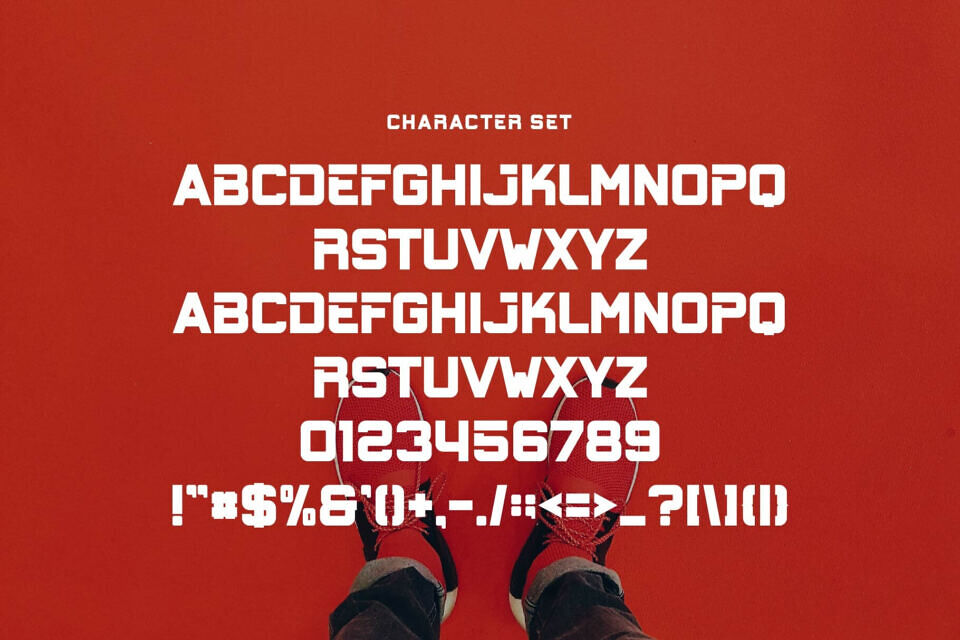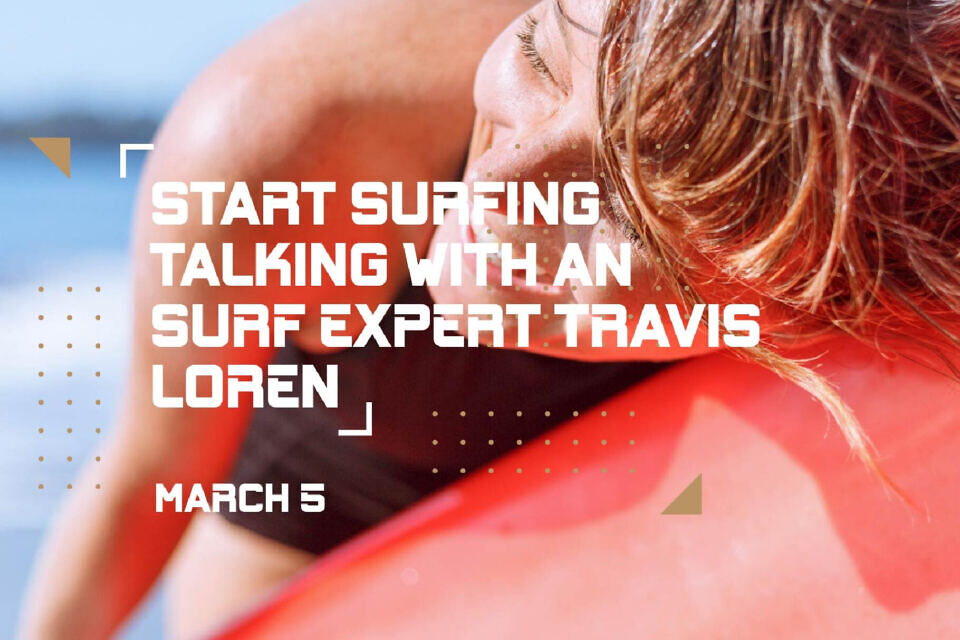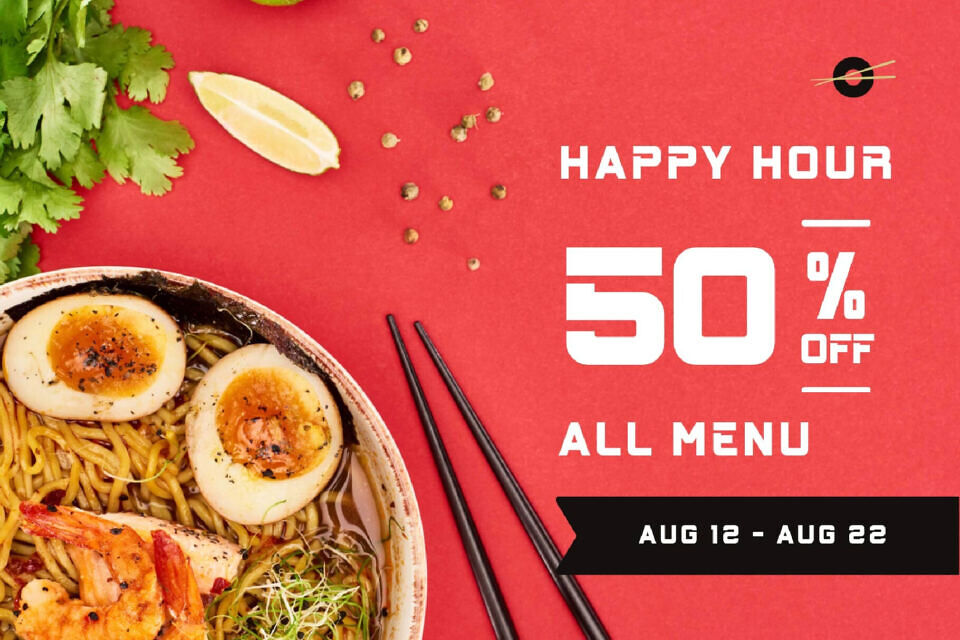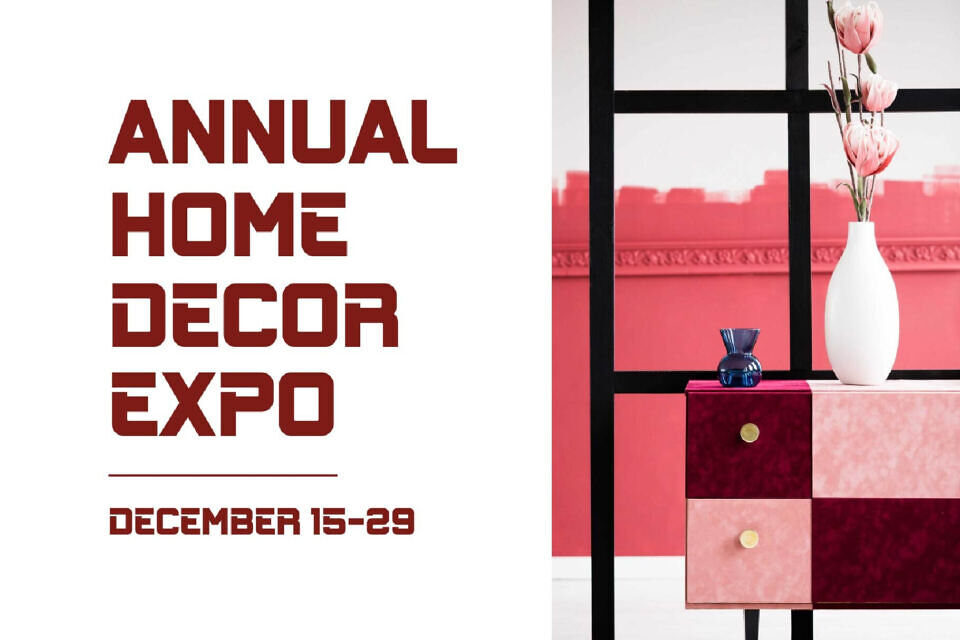
Buren Font
Buren is a sans serif typeface inspired by the famous minimalist logo perfect for the purposes of designing templates, brochures, videos, advertising branding, logos, invitation, layout design, elegant crafting, beauty design and other.